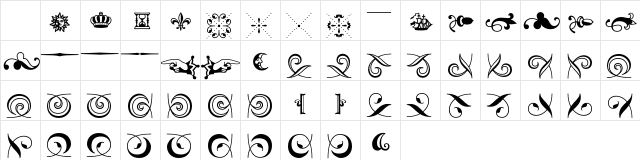
Complete HoeflerText Fleurons glyph index. Displaying only characters natively supported by HoeflerText Fleurons font.
HoeflerText is a composed and adaptable typeface that performs quietly and consistently across a wide range of design contexts.